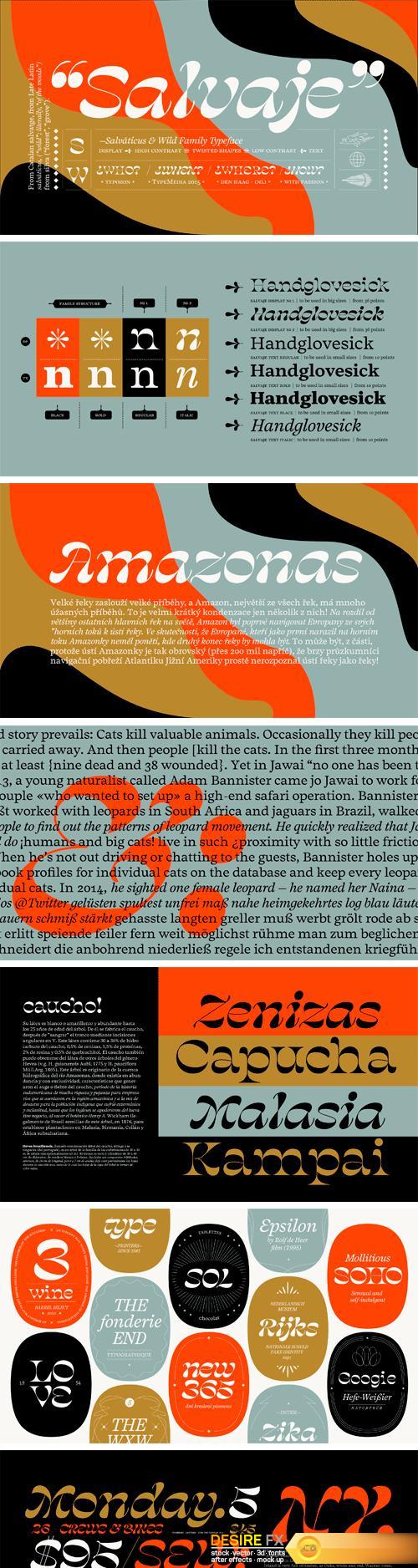
Salvaje Display Font Family
Salvaje Display is a typeface consisting of two distinct styles. Part of the broader Salvaje type family designed by Typozon, these typefaces draw their inspiration from the birds-of-paradise who only live in one part of the world: New Guinea-Australia. These rainforest birds have over time evolved in a very interesting visual way; they can radically transform their shape and the way they look—from very subtle to striking and elaborate—using many attributes unique to their species.